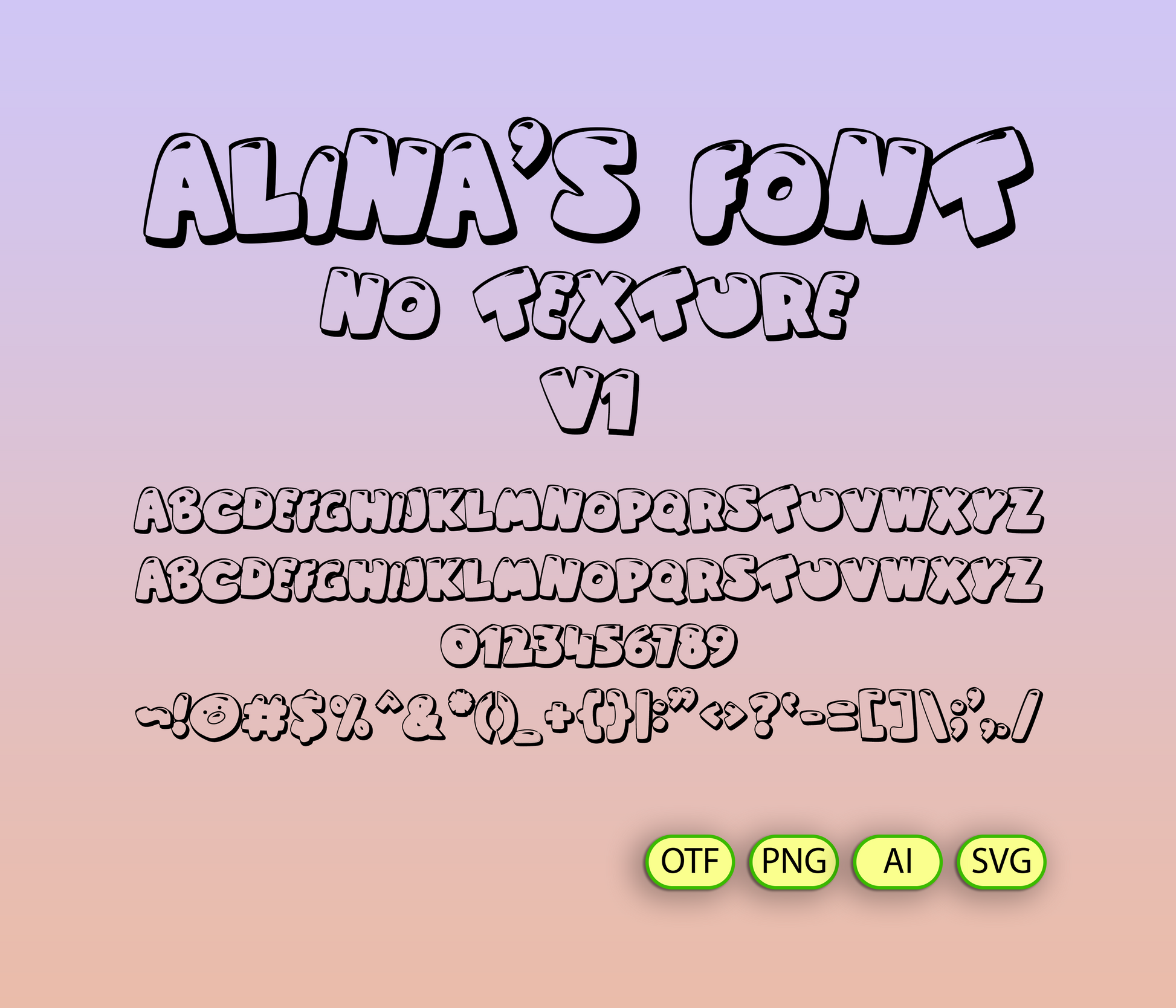
Cozy Living Room Playful Family Style Font
Cozy Living Room Font Playful Family Style
Dive into the whimsical world of imaginative play with our Cozy Living Room font, capturing the essence of childhood wonder and creative storytelling. Perfect for children's book designers, family event planners, educational content creators, and playful brand developers, this font brings the warm, inviting spirit of interactive entertainment to your projects. Create delightful invitations, kid-friendly merchandise, or engaging digital content with the cheerful, nurturing energy of family-centered adventures.
Our Cozy Living Room font features soft, rounded shapes and friendly characters reflecting the comfortable yet engaging aesthetic of home-based family entertainment. Ideal for:
- Children's Events: Create eye-catching invitations, party decorations, and activity materials for birthday parties, playdates, and family gatherings
- Educational Design: Perfect for storybook covers, learning materials, and classroom decorations that inspire creativity and imagination
- Digital Media: Enhance websites, blogs, and social media with warm headers and graphics that express comfort and family bonding
- Entertainment Content: Add authentic character to children's games, puzzle designs, and promotional materials for family-friendly events
- Personal Projects: Bring playful charm to scrapbooking, DIY crafts, and home decor inspired by the aesthetics of cozy family time